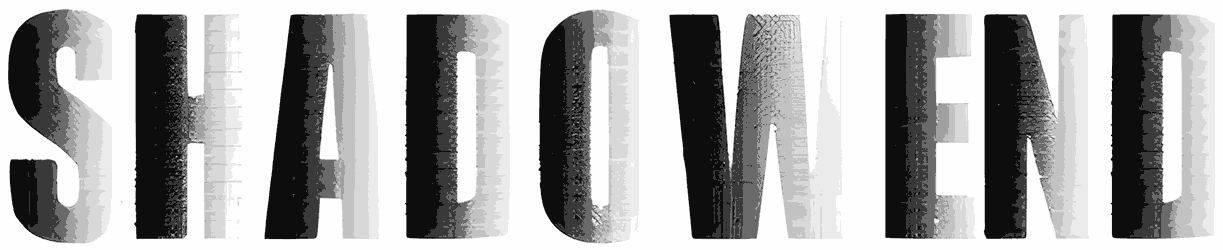
Shadowend Font
You may give your writing a tough, rugged air with Shadowend, a fancy eroded font that may be just the thing to make your readers feel like they can take on the world.
Despite not having any numerals or lowercase characters, this shadow font is useful for a variety of projects thanks to its two sets of capital letters, such as posters, flyers, advertisements, and promotions. This font is only one of many freebies in our collection here at RB.